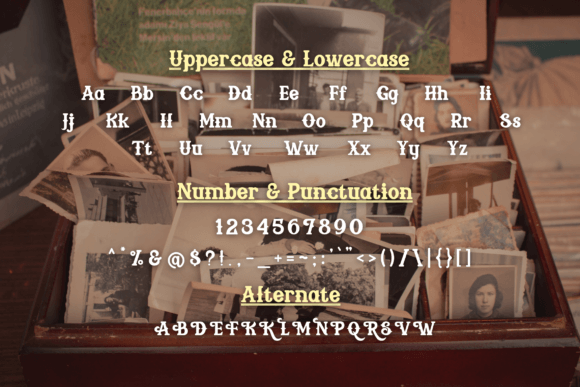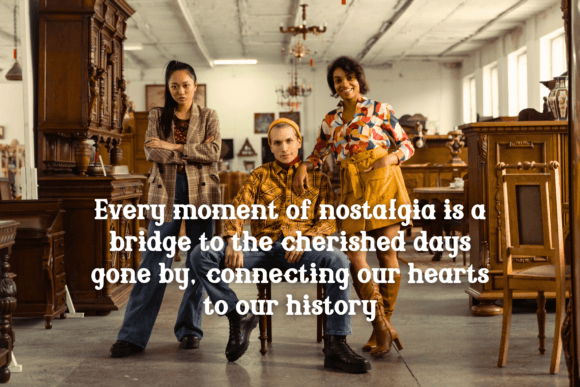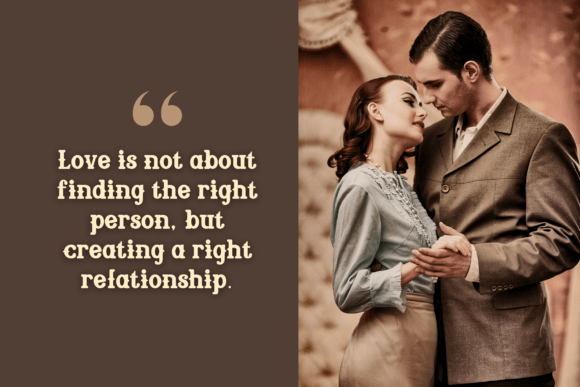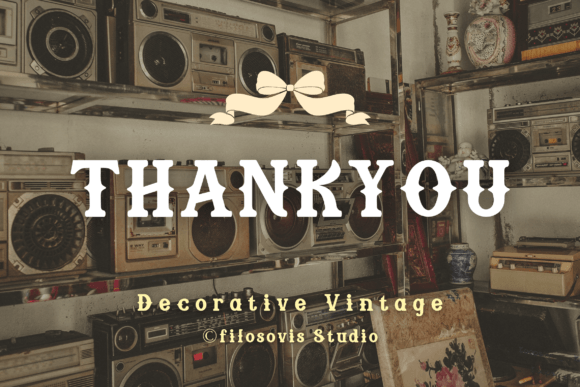
Unleashing the Playful Spirit of Design
Have you ever stumbled upon a font that instantly sparks your creativity and makes you want to run with an idea? For many designers, that moment of inspiration often comes from discovering a unique and captivating font that adds a dash of personality to their work. That’s exactly what happens when you encounter the Kahuripan Font – a decorative font that brings a playful twist to any design.
With its whimsical letterforms and charming aesthetic, the Kahuripan Font is perfect for eye-catching headlines, vibrant posters, and playful branding projects. Whether you’re looking to add a touch of whimsy to a children’s book or create a bold statement for a fashion brand, this font is sure to infuse your creations with joy and personality. As a valuable tool for designers, the Kahuripan Font offers endless possibilities for creative expression and self-expression.
Kahuripan Font Key Features
- Font Family: Kahuripan is a typeface designed to reflect the rich cultural heritage of Indonesia. It is available in multiple weights, from light to bold.
- Character Set: The Kahuripan font includes a comprehensive character set, covering Latin, Indonesian, and other languages used in Southeast Asia.
- Unique Characteristics: Kahuripan features a unique blend of traditional and modern elements, making it suitable for a wide range of applications, from body text to display typography.
- Language Support: The font supports multiple languages, including Indonesian, English, and several Southeast Asian languages, making it an excellent choice for multilingual projects.
Kahuripan Font Review
I recently had the chance to work with the Kahuripan Font and I must say it’s a unique addition to any design project. ✨ Here are a few things that really stood out to me:
- ✨ The font’s distinctive curves and lines add a touch of elegance to any text, making it perfect for creative projects or brand identities.
- ✨ The font’s versatility allows it to be used in a wide range of contexts, from titles and headings to body text and captions.
- ✨ The font’s OpenType features make it easy to add flourishes and effects to the text, giving designers a lot of creative control.
- ⚠️ The font may not be suitable for very small text sizes, as the curves and lines can become difficult to read at smaller scales.
- ⚠️ The font’s unique style may not be to every designer’s taste, and some may find it too ornate or over-the-top.
Overall, I would say that the Kahuripan Font is a solid choice for designers looking to add some flair to their projects. With its unique style and versatility, it’s a great option for creative projects or brand identities. However, it may not be the best choice for very small text sizes or projects that require a more straightforward, minimalist aesthetic.
Tips for Getting the Most Out of Kahuripan Font
Use the Kahuripan Font in combination with bold or italic styles to create a visually appealing contrast. Experiment with different font sizes and colors to create a unique look.
Common Use Cases for Kahuripan Font
The Kahuripan Font is ideal for use in cultural or historical designs, such as traditional Indonesian or Javanese-inspired artwork. It can also be used in modern designs that require a unique and exotic feel.